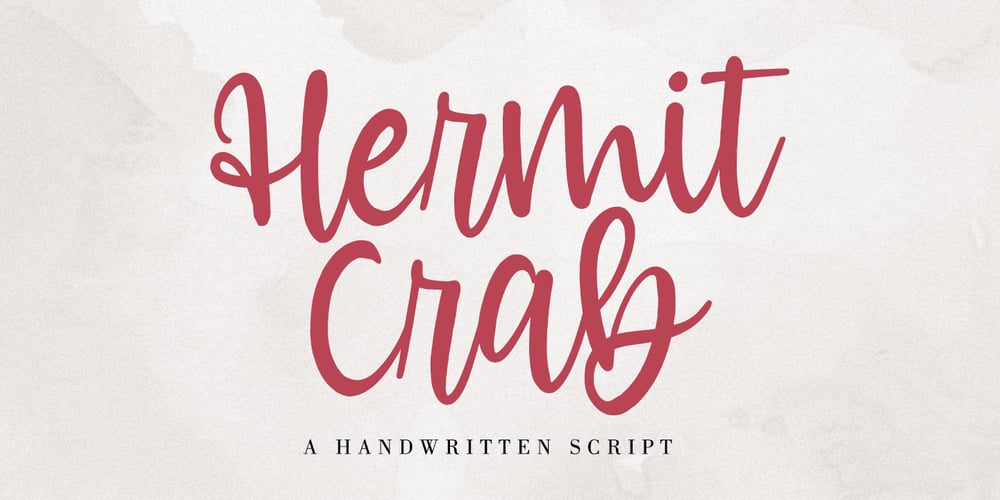
Hermit Crab Font Family was designed by Mauli Zari and published by Dhan Studio. Hermit Crab contains 1 styles and family package options. Hermit Crab is a beautiful modern handwritten font specially designed for your current and future design needs.Hermit Crab Font is perfect for trending projects, modern, logos, blogs, branding, clothing, stationery designs, quotes, greeting cards, t-shirts, invitations, book titles, packaging designs, posters and more.